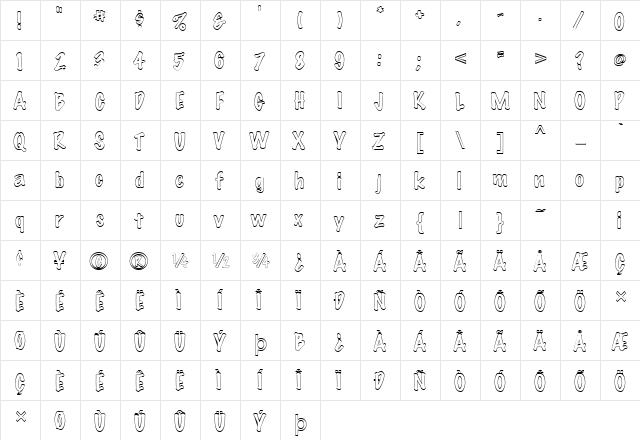
MarkerHollow Normal Font Preview
MarkerHollow Normal
Design Context for MarkerHollow Typeface
MarkerHollow is a composed and adaptable typeface that performs quietly and consistently across a wide range of design contexts.